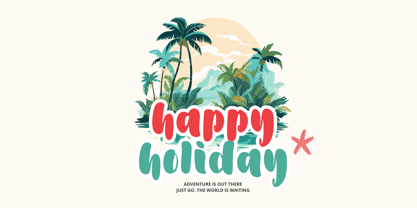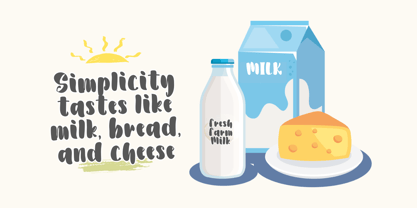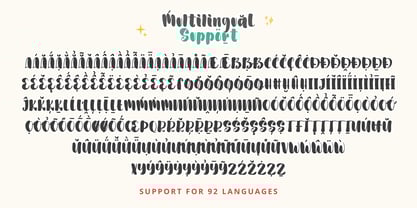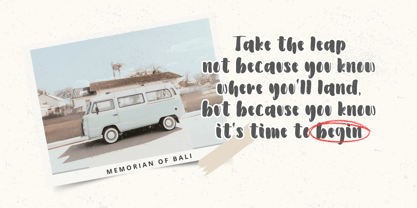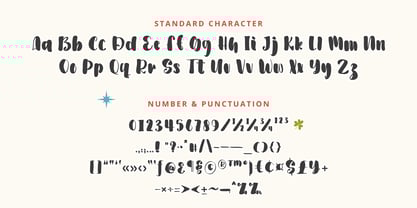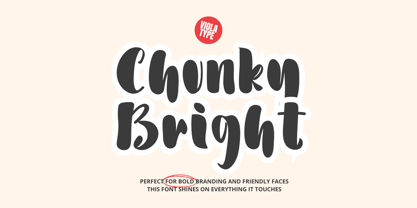
Chunky Bright
by Violatype
The Chunky Bright Font Family was designed by David Kasidi, Hasna Viola and published by Violatype. Chunky Bright contains 1 styles.
Step into a world of creativity with Chunky Bright, a delightful bold display font that brings a perfect blend of softness, strength, and personality. Designed with rounded edges and thick letterforms, this font was made to capture attention while keeping things friendly, approachable, and full of fun.
Chunky Bright is more than just a font it’s a statement. Whether you're designing for children’s books, snack packaging, logo designs, greeting cards, posters, school projects, or anything that needs a pop of positivity, Chunky Bright helps you say it loud with charm. Its clear readability and expressive curves make it suitable for both headline and subtext purposes, especially when you want your message to feel bold, but not too serious.
Chunky Bright brings a burst of joyful energy into every project. Its versatility allows you to be playful and expressive across a wide range of applications. Whether you’re working on branding, digital products, t-shirt prints, product labels, or educational material this font brings a light-hearted, modern twist that stands out.
Bring brightness, boldness, and a little bit of fun into your design toolbox with Chunky Bright — a font that’s as confident as it is kind!